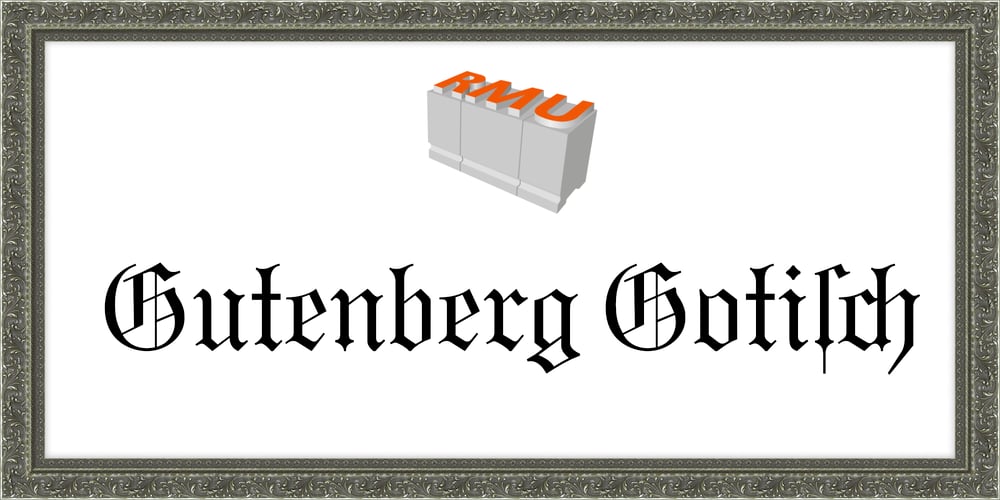
Gutenberg Gotisch Font Family was designed by Ralph M. Unger and published by RMU. Gutenberg Gotisch contains 1 styles and family package options. Gutenberg Gotisch is a redesign of an inhouse font released by Bauer in 1885, and it is a predecessor of Princess Engraved. So both fonts make a perfect match. The long s can be reached by typing the integral sign or turning the round s into the long s by using the historical OT feature. In this font, you have the possibility to turn I, V, X, L, C, D, and M into Roman numerals by activating the salt feature. Finally I recommend to use both ligature features.